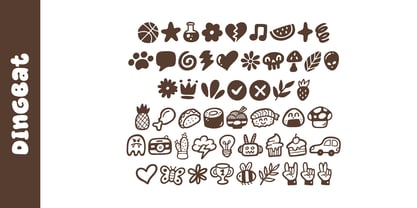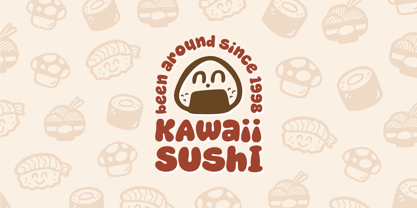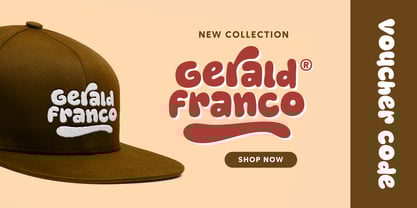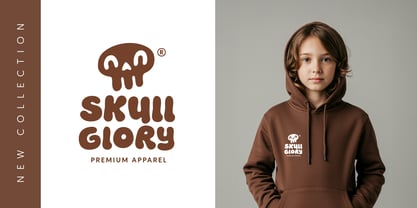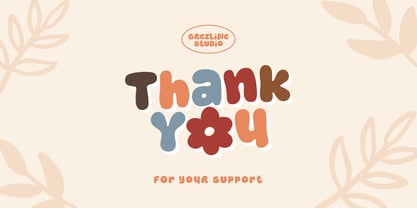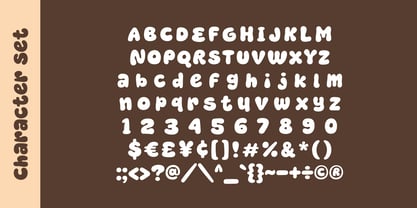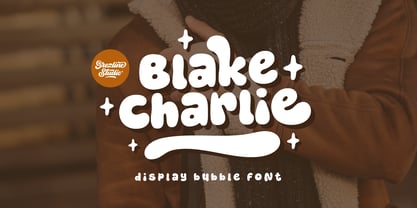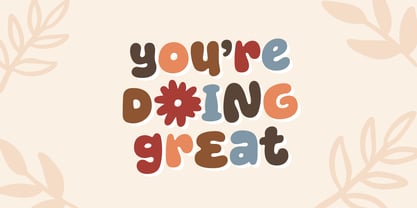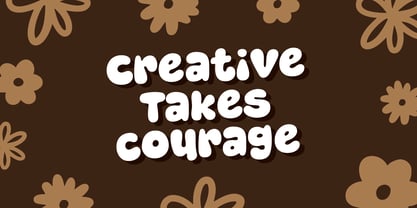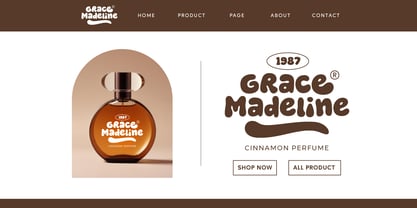
Blake Charlie
by Grezline Studio
The Blake Charlie Font Family was designed by Akhmad Reza Fauzi and published by Grezline Studio. Blake Charlie contains 2 styles and family package options. More about this family
Say hello to our newest font — Blake Charlie, the bold, bubbly font that’s dripping with personality, made to POP off the page and bring instant joy to every letter you type!
Whether you’re crafting playful packaging, kid-friendly branding, eye-popping headlines, or that "so-cute-I-can’t-breathe" social media post — this font isn’t just fun, it’s a whole vibe. With curves that hug and bounce, and characters that radiate confidence, Blake Charlie is here to break the rules of boring type and serve up a full scoop of happy in every word.